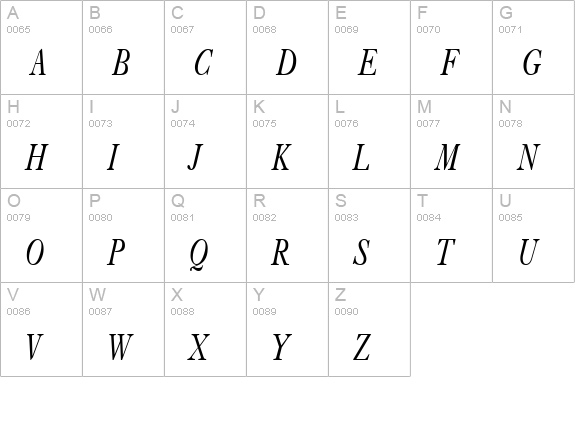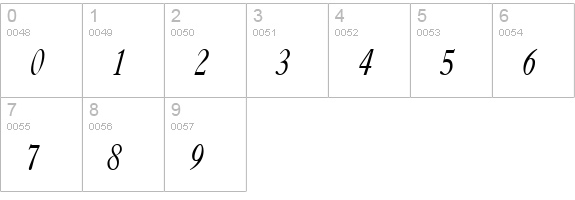
CasqueCondensed Italic Font Details
CasqueCondensed Italic is a distinctive, italic variant in the CasqueCondensed typeface family \xE2\x80\x94 well suited to design and typography projects.
CasqueCondensed Italic font is a sleek and modern typeface that exudes elegance and sophistication. Its stylish slanted design adds a touch of flair to any project, making it perfect for adding a contemporary edge to your branding, design work, or creative projects. This font features crisp lines and a condensed style that allows for maximum impact in a minimal amount of space. Its italicized version adds a dynamic and stylish touch, making it perfect for capturing attention and creating a sense of movement in your text. CasqueCondensed Italic font is a versatile choice for a wide range of applications, from headlines and titles to body text and captions. Whether you're designing a website, creating marketing materials, or working on a print project, this font is sure to make a statement. Best of all, CasqueCondensed Italic font is available for free download at FontsMarket.com. So why wait? Enhance your designs with this stylish and modern typeface today!